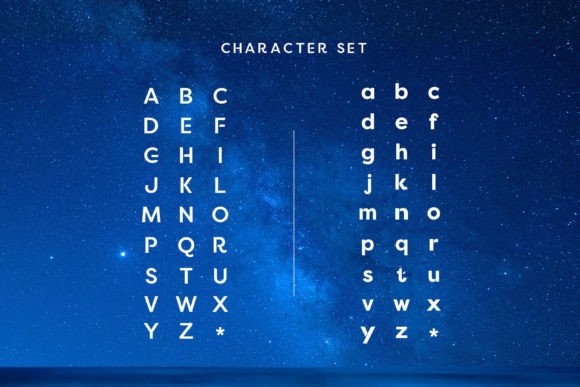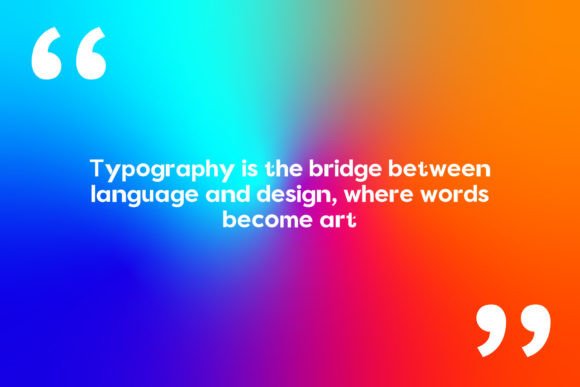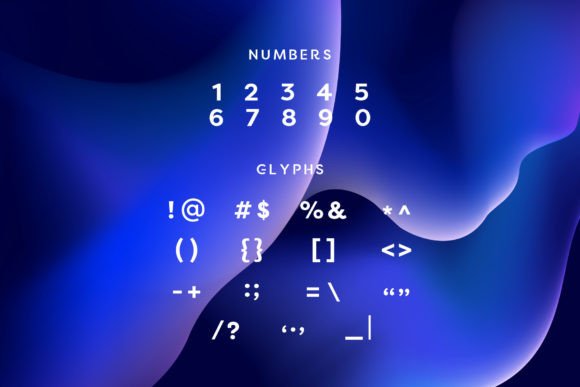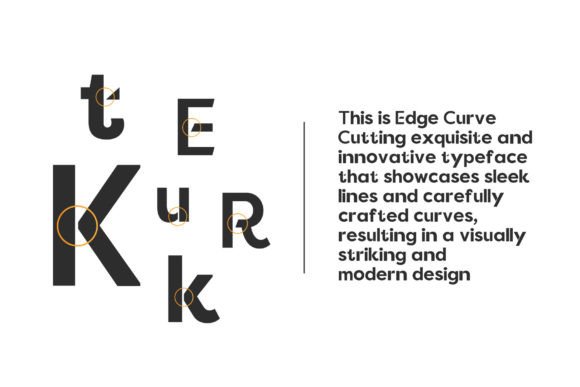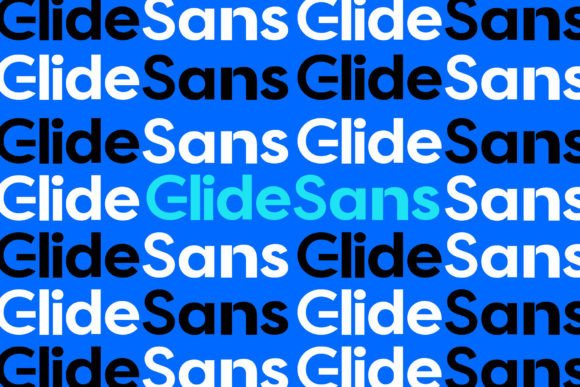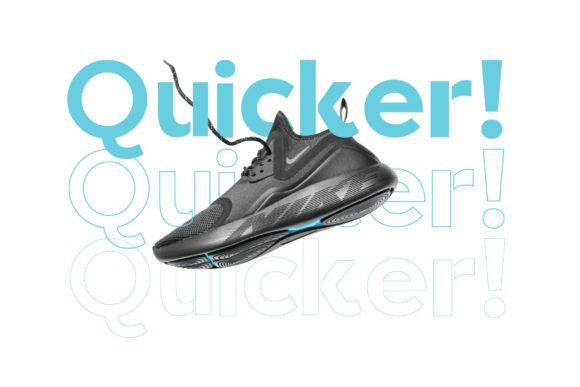
Introducing Glide Sans Font: The Ultimate Choice for Bold and Modern Designs
In the world of typography, a font can make or break a design. When it comes to creating a lasting impression, designers need a typeface that exudes strength, modernity, and confidence. This is where Glide Sans comes in – a bold and powerful sans-serif font designed to elevate your projects to new heights. In this article, we’ll explore the features, benefits, and applications of Glide Sans, and why it’s the perfect choice for designers and crafters looking to make a statement.
The Power of Glide Sans
Glide Sans is a bold and commanding sans-serif typeface that demands attention. Its clean lines and distinct geometric shapes give it a strong and modern aesthetic, perfect for headlines, logos, posters, and branding materials. The font’s bold weight ensures excellent legibility, even at small sizes, making it ideal for both print and digital applications. Whether you’re designing a cutting-edge tech startup logo or a dynamic sports event poster, Glide Sans will bring your project to life with its confident and assertive presence.
Key Features of Glide Sans
- Clean Lines and Geometric Shapes: Glide Sans features clean lines and distinct geometric shapes, giving it a strong and modern look.
- Bold Weight: The font’s bold weight ensures excellent legibility, even at small sizes.
- Consistent Stroke Widths: The characters are carefully crafted with consistent stroke widths, creating a balanced and harmonious look.
- Sleek and Contemporary Aesthetic: The absence of serifs gives Glide Sans a sleek and contemporary aesthetic, allowing it to adapt seamlessly to various design styles.
Applications of Glide Sans
Glide Sans is a versatile font that can be used in a variety of design applications, including:
- Headlines and Titles: Use Glide Sans to create bold and attention-grabbing headlines and titles.
- Logos and Branding: The font’s strong and modern aesthetic makes it perfect for logos and branding materials.
- Posters and Flyers: Glide Sans is ideal for posters and flyers, where a bold and eye-catching font is needed.
- Digital Applications: The font’s excellent legibility makes it suitable for digital applications, such as websites, mobile apps, and social media graphics.
Why Choose Glide Sans?
So, why should designers and crafters choose Glide Sans over other fonts? Here are just a few reasons:
- Professionalism and Assertiveness: Glide Sans brings an air of professionalism and assertiveness to your designs, while maintaining a sense of approachability and clarity.
- Versatility: The font’s sleek and contemporary aesthetic allows it to adapt seamlessly to various design styles.
- Legibility: Glide Sans is designed for excellent legibility, even at small sizes, making it perfect for both print and digital applications.
In conclusion, Glide Sans is a bold and powerful sans-serif font that is perfect for designers and crafters looking to make a lasting impression. Its clean lines, distinct geometric shapes, and bold weight make it ideal for headlines, logos, posters, and branding materials. With its excellent legibility, versatility, and professional aesthetic, Glide Sans is the ultimate choice for modern designs. Whether you’re a designer, crafter, or simply someone looking for a bold and confident font, Glide Sans is sure to elevate your projects to new heights.